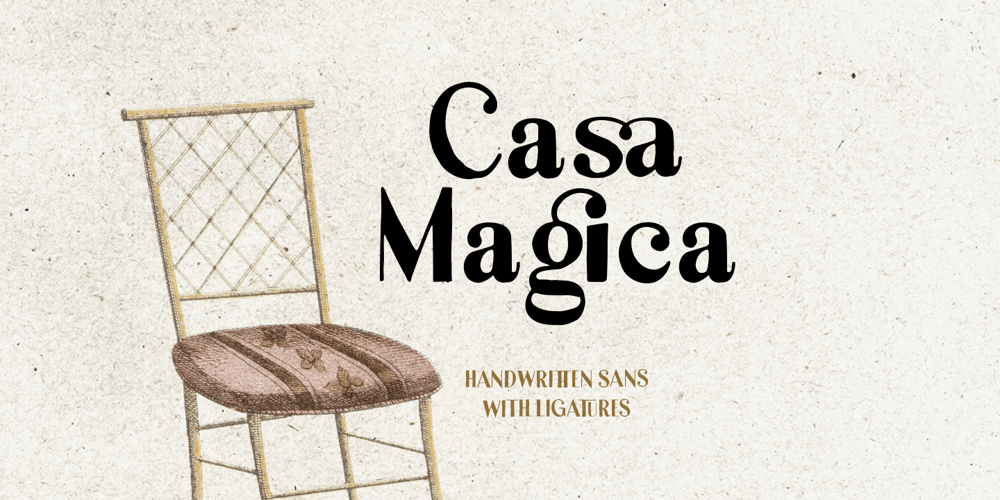
Casa Magica
Casa Magica font
Casa Magica Font Family was designed by Hendry Juanda and published by Letterhend. Casa Magica contains 1 styles and family package options. Looking for a font that feels both cozy and stylish? Look no further than Casa Magica. This handwritten sans serif font has a skinny form that gives it a light and airy feel, offer versatility and creative potential. Whether you’re designing for a playful brand or a casual event, this font will add a touch of warmth and charm to your work.Features : Uppercase & lowercase Numbers and punctuation Ligature/Alternates Characters Multilingual support PUA encoded